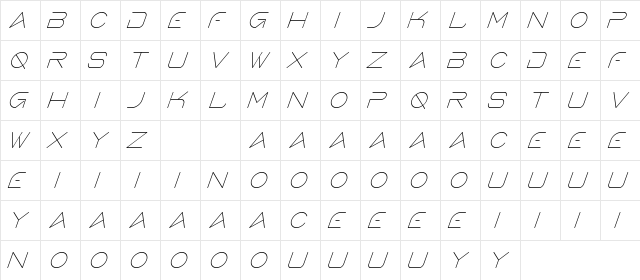
Gerth Demo Light Italic Regular
Design Context for Gerth Demo Light Italic Typeface
Gerth Demo Light Italic is a composed and adaptable typeface that performs quietly and consistently across a wide range of design contexts. The slanted form adds forward momentum and visual energy. The delicate stroke weight brings airiness and refinement to layouts.
Pro Tip: Use Gerth Demo Light Italic for emphasis, pull quotes, and subheadings where its slanted energy can add rhythm to the layout.